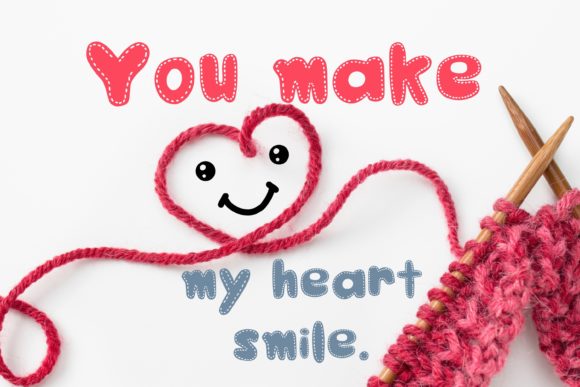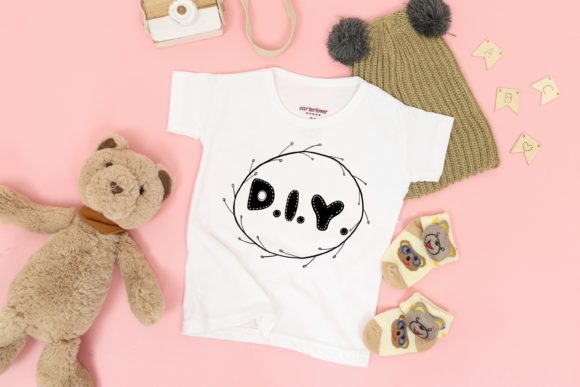
Introduction to Sewing Craft Font
Sewing Craft is a minimal and neat display font.
It is a good match for an incredibly large set of projects, so add it to your creative ideas and notice how it makes them stand out You can add this cute display font on t-shirts, mugs, children’s books, school projects, quotes, fashion, and other crafts.